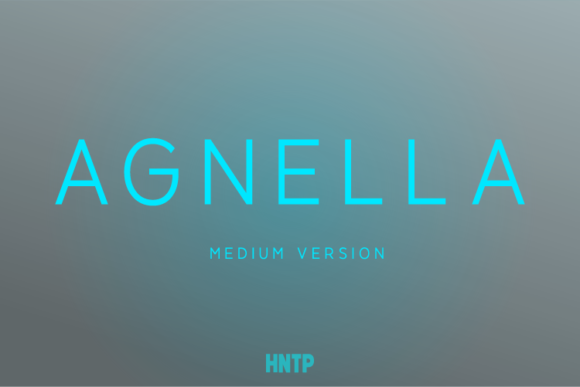
Enter Agnella Medium Font, a versatile sans serif that combines strength and elegance. Designed to make a lasting impression, Agnella is perfect for designers seeking a reliable and stylish option for their next project. With its unique vertically and horizontally cut stems, Agnella Medium Font exudes a sense of stability and sophistication, making it an invaluable addition to any designer’s toolkit.
Agnella Medium Font Key Features
- Font Family: Agnella Medium, a high-quality font suitable for body text and titles.
- Unique Characteristics: Agnella Medium features a clean, elegant design with subtle rounded edges, making it suitable for corporate and creative projects.
- Font Weight: A medium-weight font, ideal for titles and headings that require a balance between readability and visual impact.
A Review of Agnella Medium Font
Agnella Medium Font is a modern and elegant sans-serif typeface designed to evoke a sense of sophistication and refinement. ✨ I was immediately drawn to its clean lines and rounded edges, which make it perfect for corporate branding and editorial content.
Here are some of the key strengths of Agnella Medium Font:
- ✨ Legibility: The font is highly legible, even at smaller font sizes, making it ideal for body text.
- ✨ Versatility: Agnella Medium Font works well in both digital and print media, and can be used for a wide range of applications.
- ✨ Neutral tone: The font’s neutral tone makes it suitable for a variety of industries and brands.
However, I do have some reservations about the font:
- ⚠️ Limited expressiveness: While Agnella Medium Font is highly legible, it may lack the expressiveness and personality that some designers crave.
- ⚠️ Limited font family: The Agnella Medium Font is part of a relatively small font family, which may limit its versatility and application.
Overall, I think Agnella Medium Font is a solid choice for designers looking for a clean and sophisticated typeface. While it may not be the most expressive or versatile font, it is well-suited for a wide range of applications and is sure to please even the most discerning clients.
Agnella Medium Font is suitable for a variety of applications, including:
- Body text in brochures and flyers.
- Headings and titles in reports and presentations.
- Product labels and packaging design.
- Editorial content in magazines and newspapers.
What is the font’s line height and letter spacing?
The recommended line height for Agnella Medium is 1.2-1.5 times the font size. This allows for optimal readability and prevents text from becoming too crowded. The recommended letter spacing is 0-5% of the font size, depending on the specific design requirements and the intended use of the font.